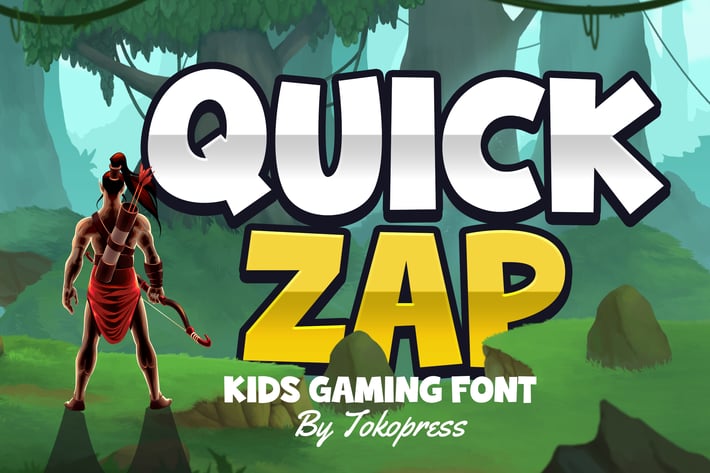
Quick Zap - Kids font
Quick Zap - Kids Font
Quick Zap is a bold, bouncy kids display typeface with high-impact geometric curves and chunky letterforms, crafted to instantly spark excitement in gaming interfaces and cartoon-themed branding. With its playful proportions and thick outlines, this font delivers a confident, energetic tone perfect for grabbing young audiences' attention across digital screens and printed media alike.
Whether you're designing for a kid's YouTube channel, mobile game UI, or action-packed adventure book cover, Quick Zap brings comic-inspired personality with clean, approachable forms and a joyful baseline bounce.
Quick Zap was built for designers who need loud, youthful energy in their layouts. Ideal for use in gaming UIs, children’s books, educational apps, poster titles, and kid-centric branding, its expressive style makes it easy to connect with younger audiences or playful markets. The sturdy geometric build ensures legibility, while its fun tone keeps viewers entertained—perfect for projects that need to stand out and stay remembered.
Key Features :
Optimized for Playful Visuals
- Eye-catching and easy to read at any size
- Rounded, geometric forms for approachability
Perfect for Gaming & Kids Media
- Fun, dynamic tone that matches action-oriented interfaces
- Works beautifully for character dialogues, title cards, and logo design
* Reliable Structure
- Thick strokes and consistent spacing support high-impact headlines
- Bouncy visual rhythm keeps content feeling alive and active